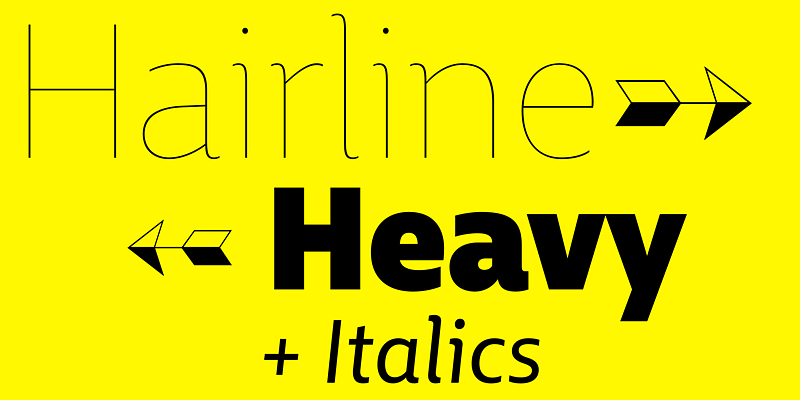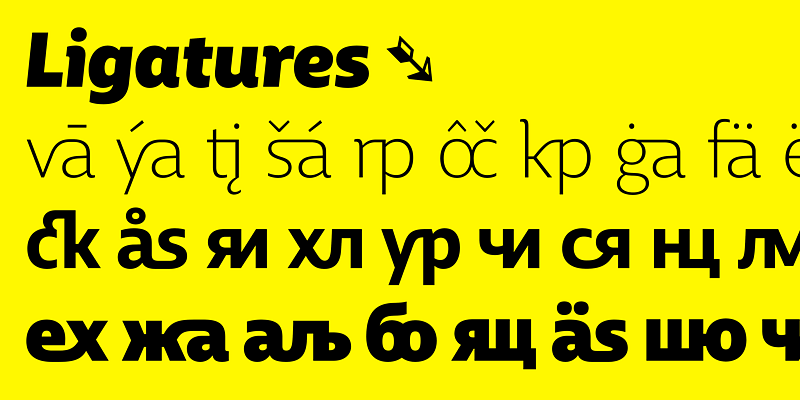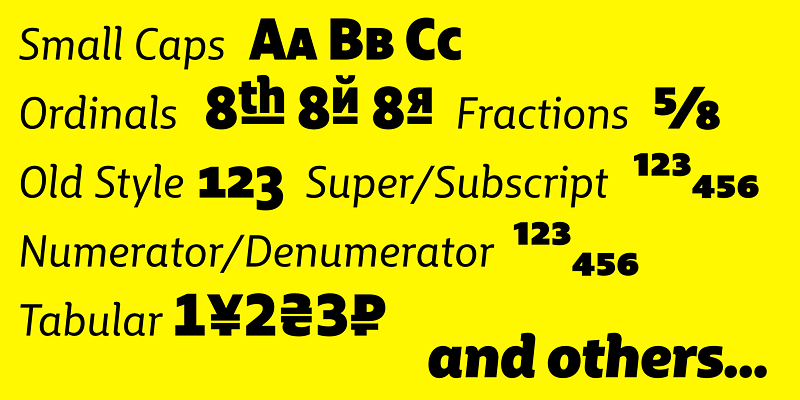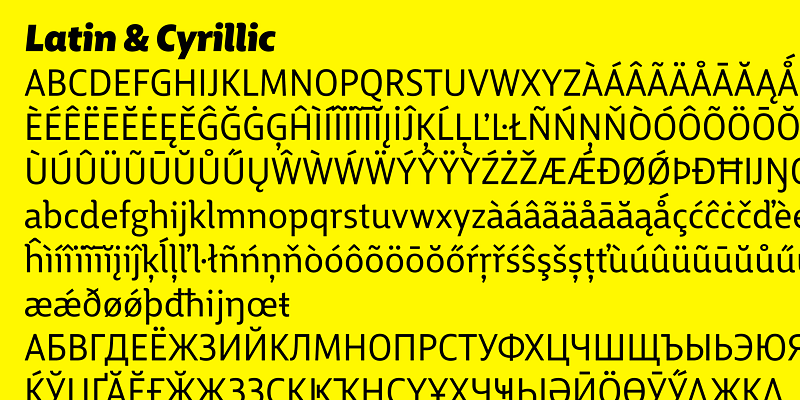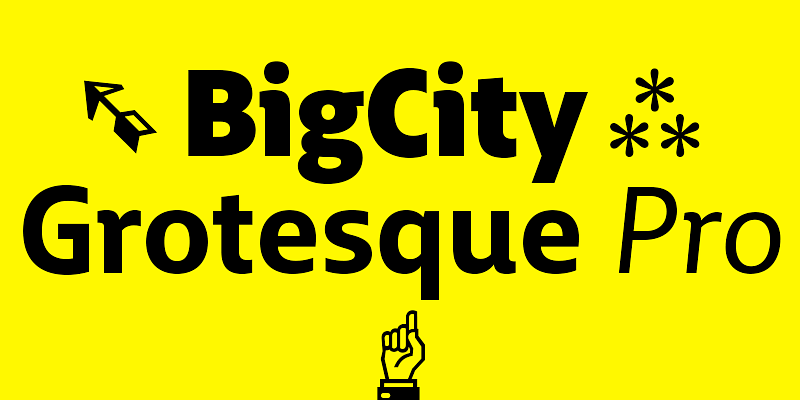
Ilya Ruderman created the first version of BigCity Grotesque for Bol’shoi Gorod magazine (Big City). The typeface, like other humanist sans serifs, is based on the structures of old-style serifs. BigCity Grotesque was the first magazine sans serif with Cyrillic ligatures. It was honored in 2009 in the international competition, Modern Cyrillic 2009.
In the latest version, by Olga Pankova, the shapes of the letters have been updated, and there are new upright and italic styles, small capitals and new ligatures and non-alphabetic symbols.
BigCity Grotesque Pro, thanks to the wide range of weights and styles that it offers, has become a serious tool for meeting all kinds of typographical demands: from large displays to the most finicky typesetting.
Ilya Ruderman and Yury Ostromentsky, founders of CSTM Fonts (2014) and font distributor type.today (2016) are both graphic and type designers.
They graduated from Moscow State University of Print (Graphic Design Department), where they took Alexander Tarbeev’s classes. Later Ilya Ruderman graduated from Type & Media (Royal Academy of Art), the Hague, the Netherlands. After graduation he was a tutor of Type&Typography course at British Higher School of Art and Design, Moscow (2008-2015), and an art-director of information agency RIA Novosti. He designed Cyrillic versions of typefaces such as Lava, Graphik, Neutraface and others, for Typotheque, Commercial Type, Typonine and House Industries. He is an author of: Permian typeface, Big City Grotesque and several other corporate typefaces.
Before 2013 Yury Ostromentsky worked mostly as an editorial designer and art-director of BigCity Magazine, where he used his personal lettering that was the base of the Pilar typeface. He is an author of several book series designs and logotypes.
Both typefaces of Ilya Ruderman and Yury Ostromentsky were the winners of such type design competitions as Modern Cyrillic 2009, Modern Cyrillic 2014, Granshan 2011, European Design Award 2012. Kazimir typeface and Tele2 Typefamily, the CSTM Fonts’s latest releases, were among the winners of Granshan 2015.